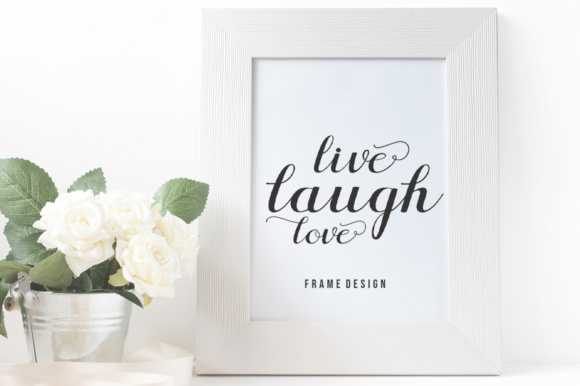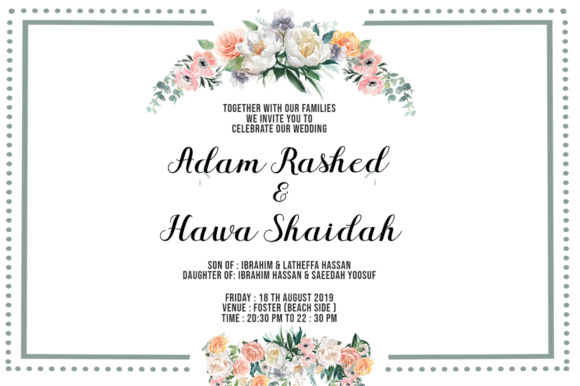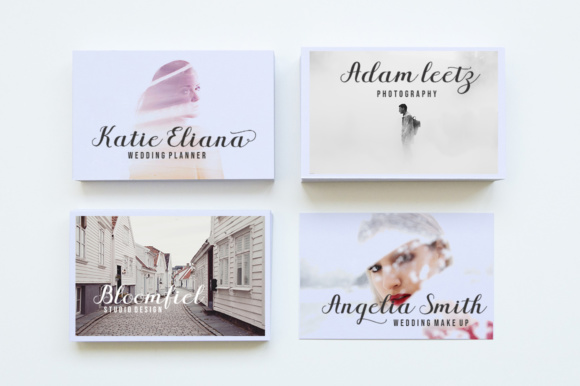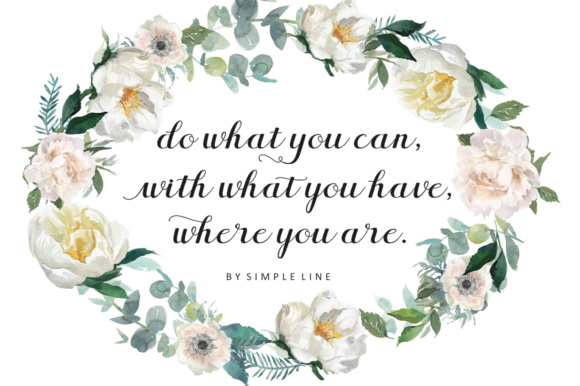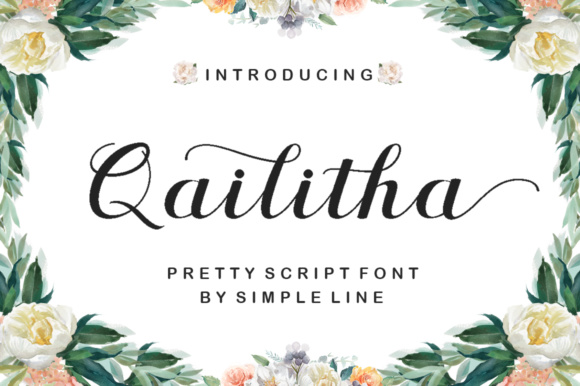
Qailitha Script Font
The Qailitha is a dynamic brush font with an organic and energetic style. It can be used for various purposes such as: logos, posters, invitations, and much more!